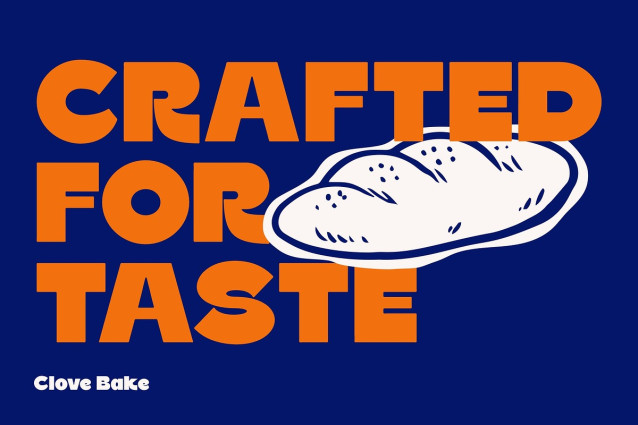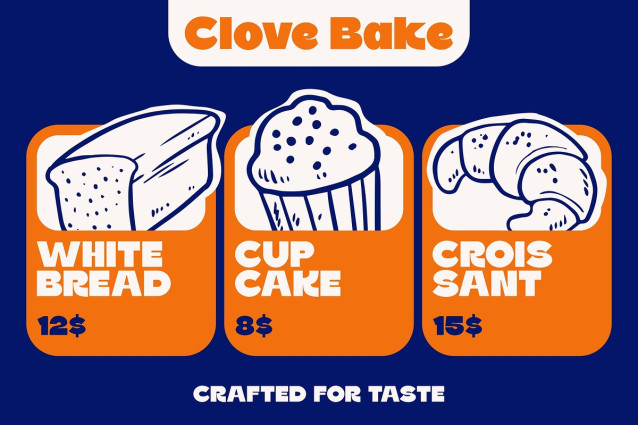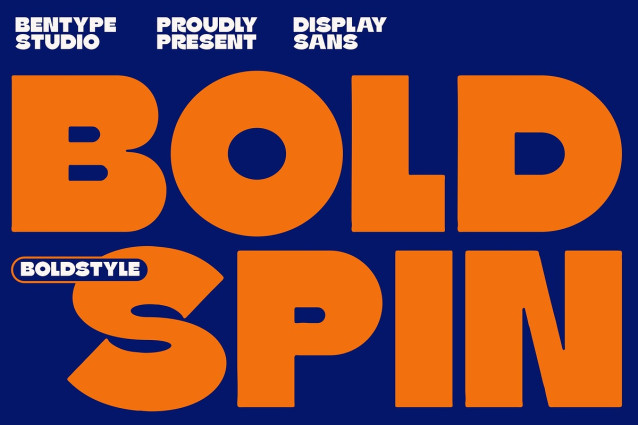
Boldspin Font
Boldspin Font is Extra bold font style or font weight that is characterized by exceptionally thick and heavy letterforms. It is a bolder and more prominent version of a particular typeface compared to its regular, bold, or semi-bold counterparts. Despite their limitations in character set and resolution, remain popular among designers for their distinct visual appeal and nostalgic charm, this font is suitable for your design needs for displays, headlines, banners etc.